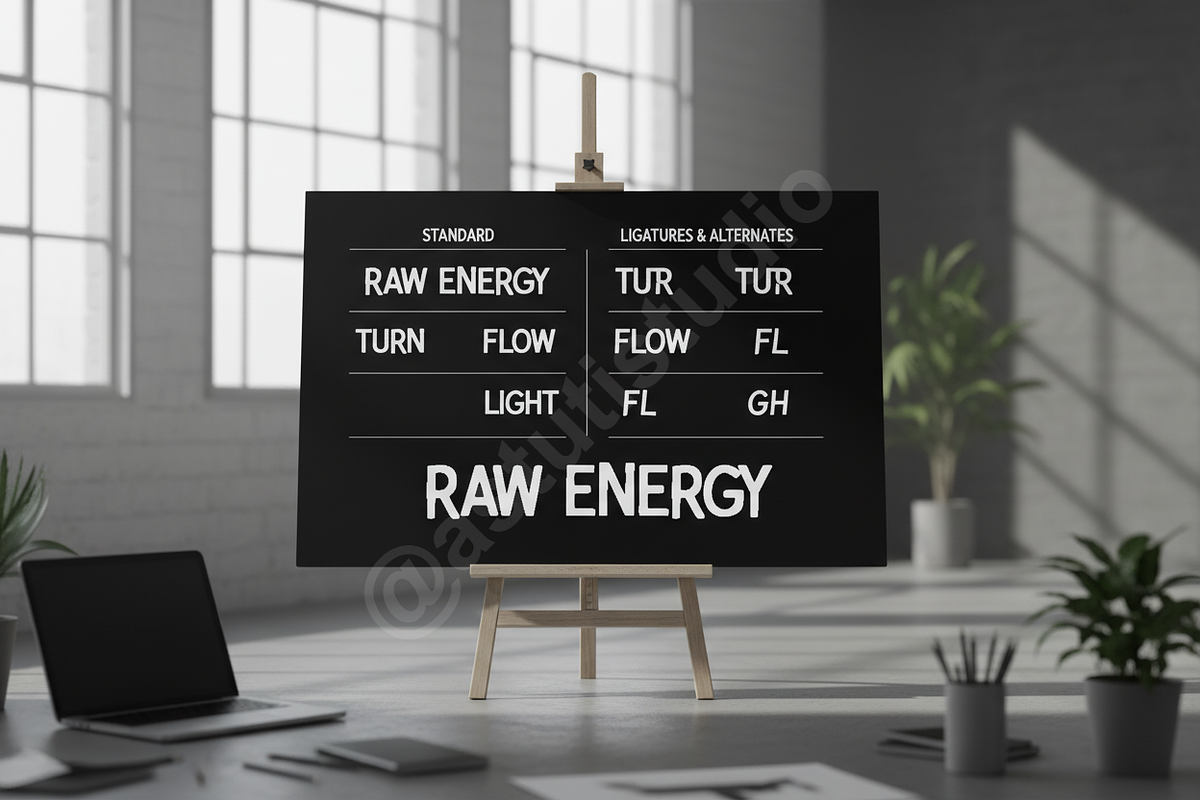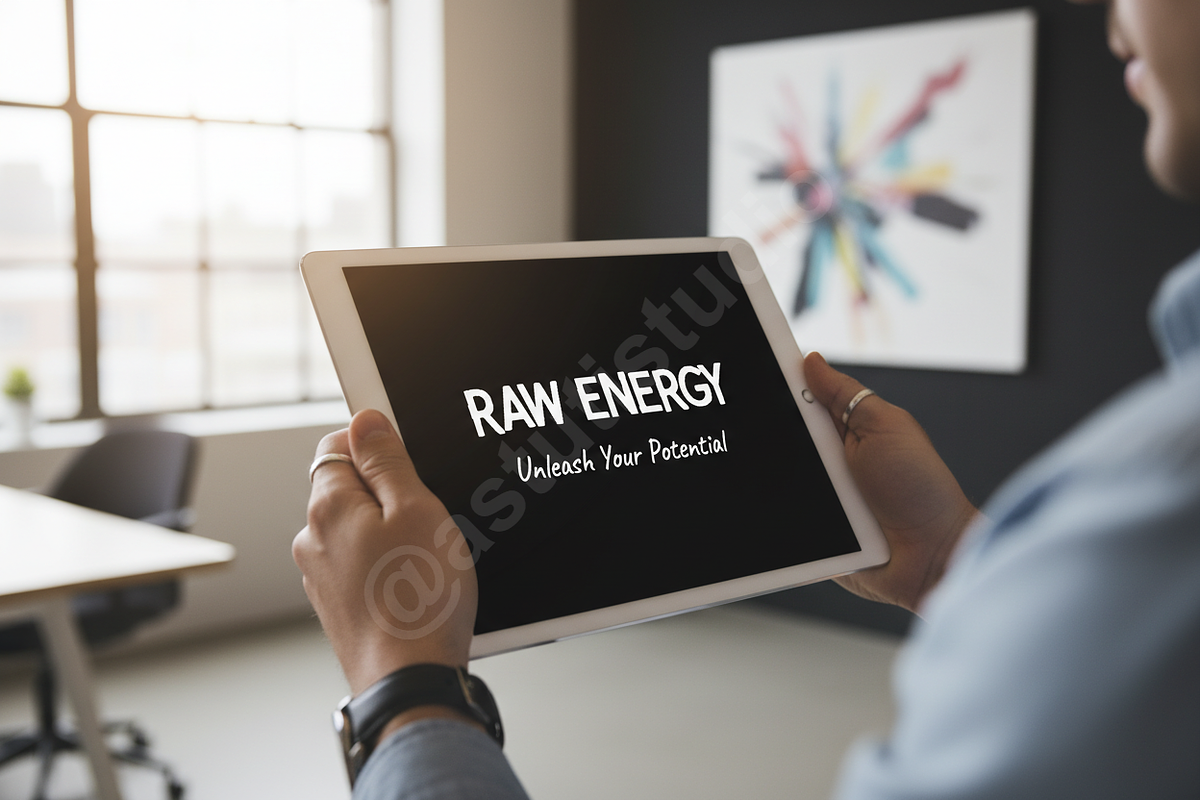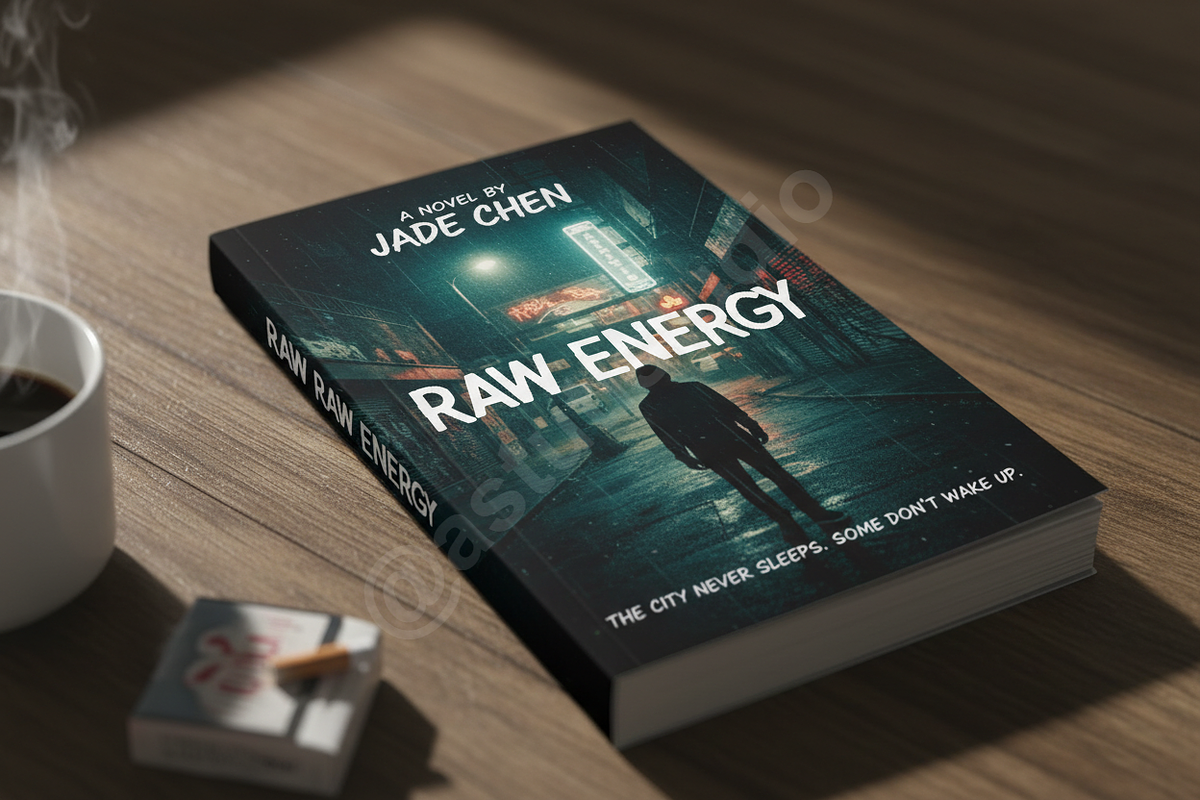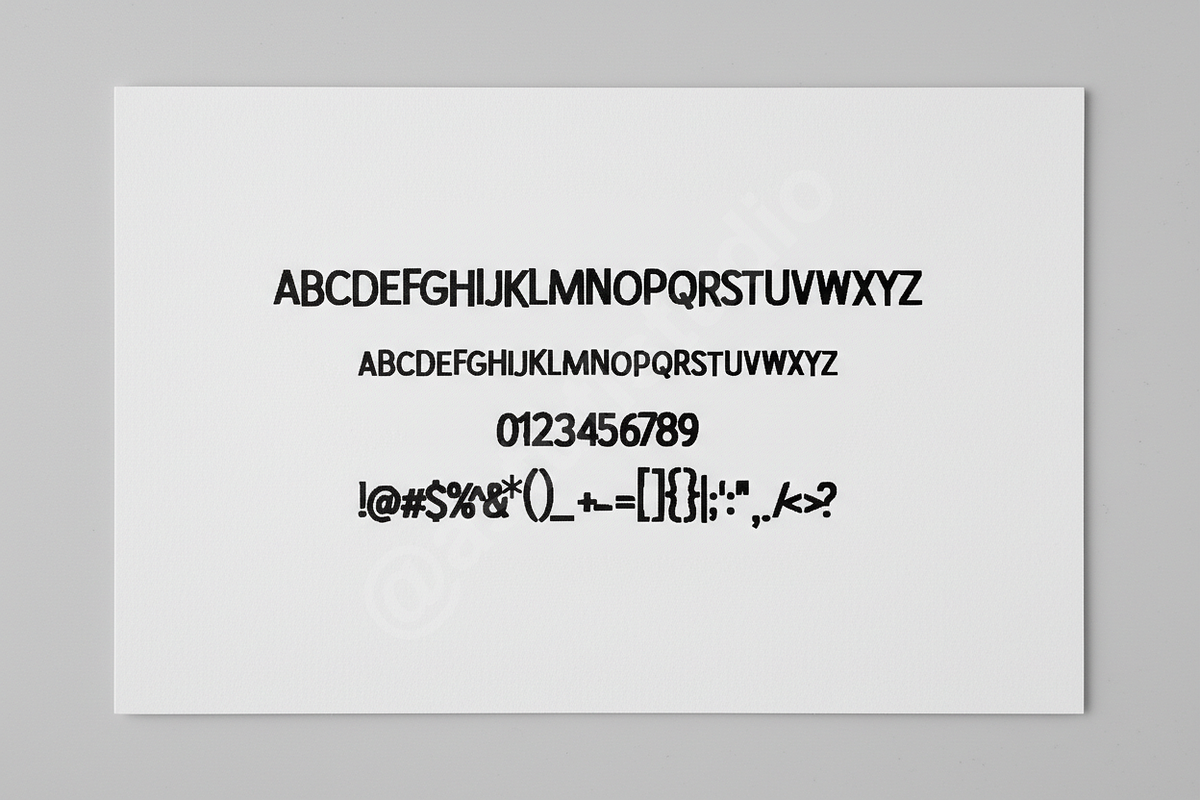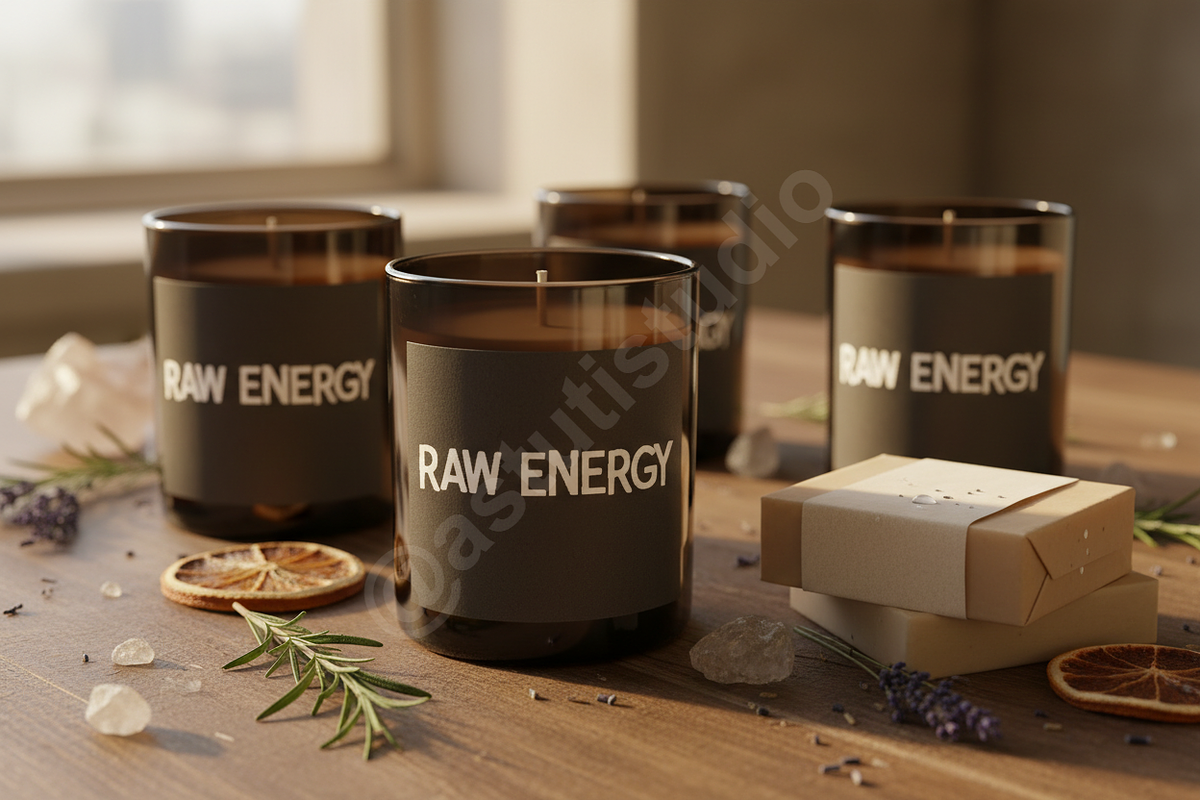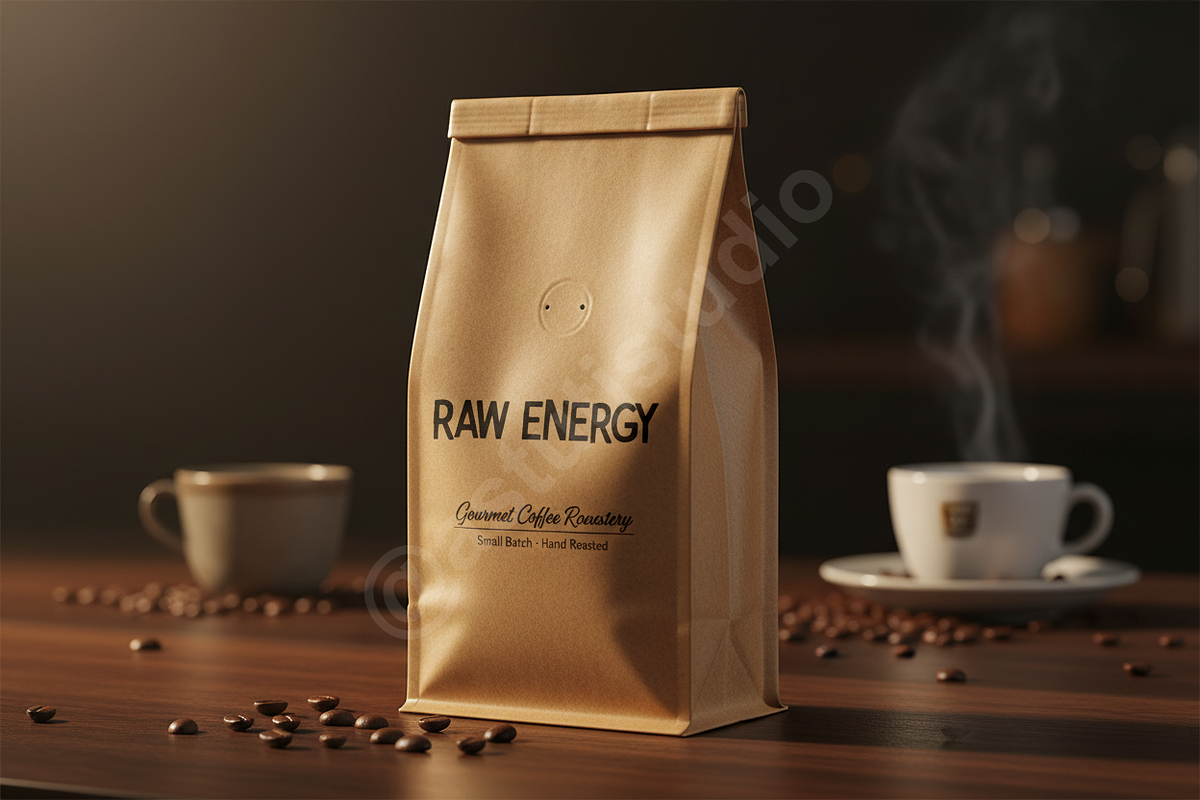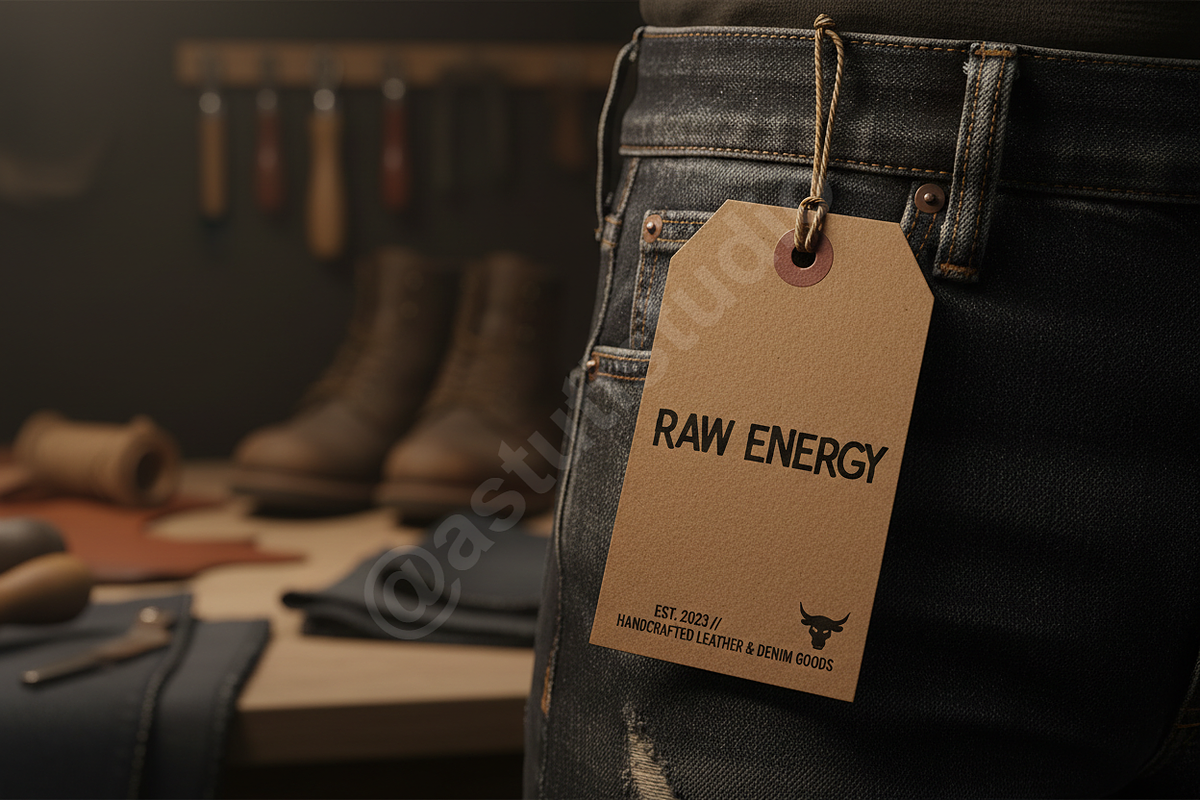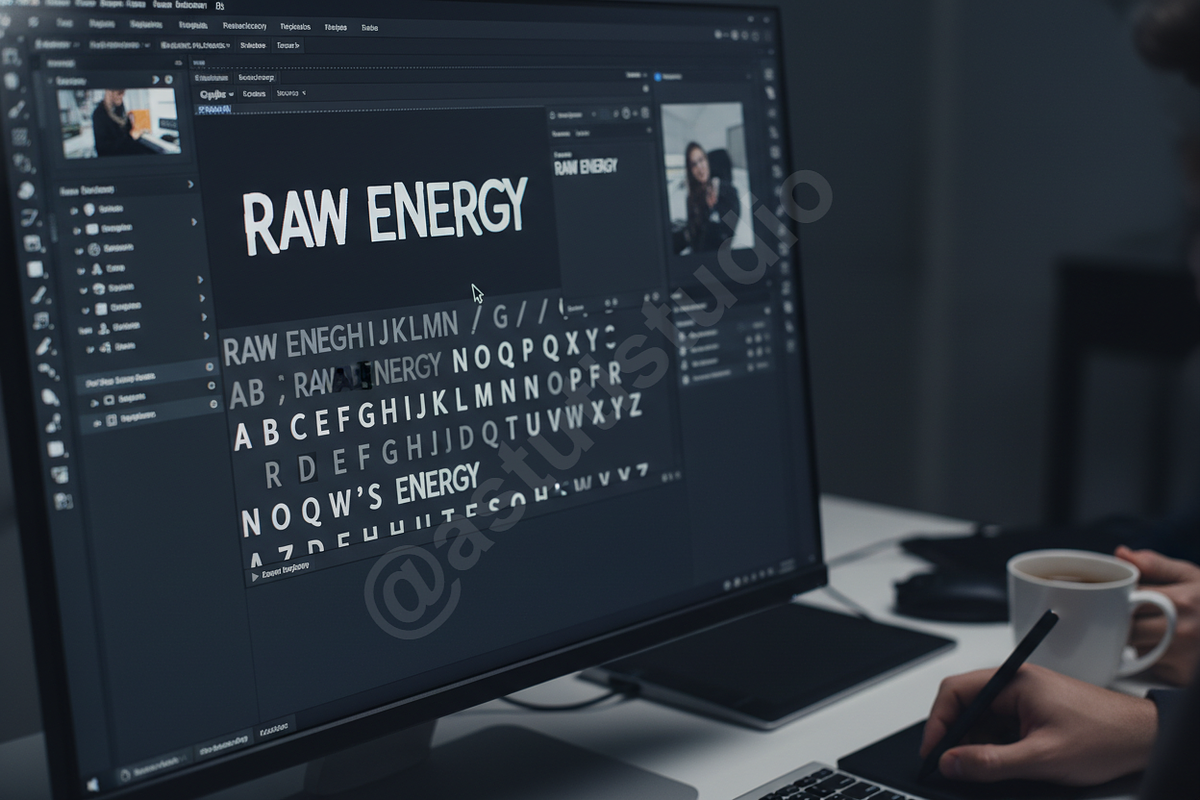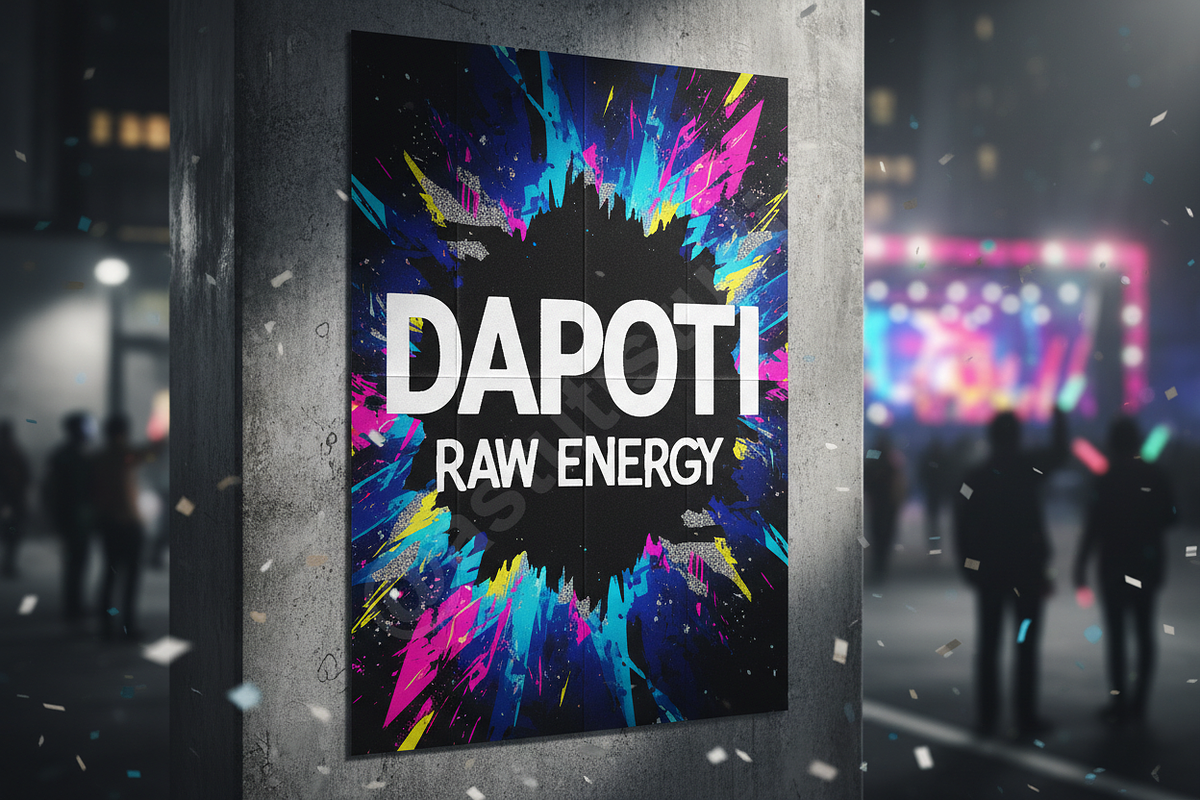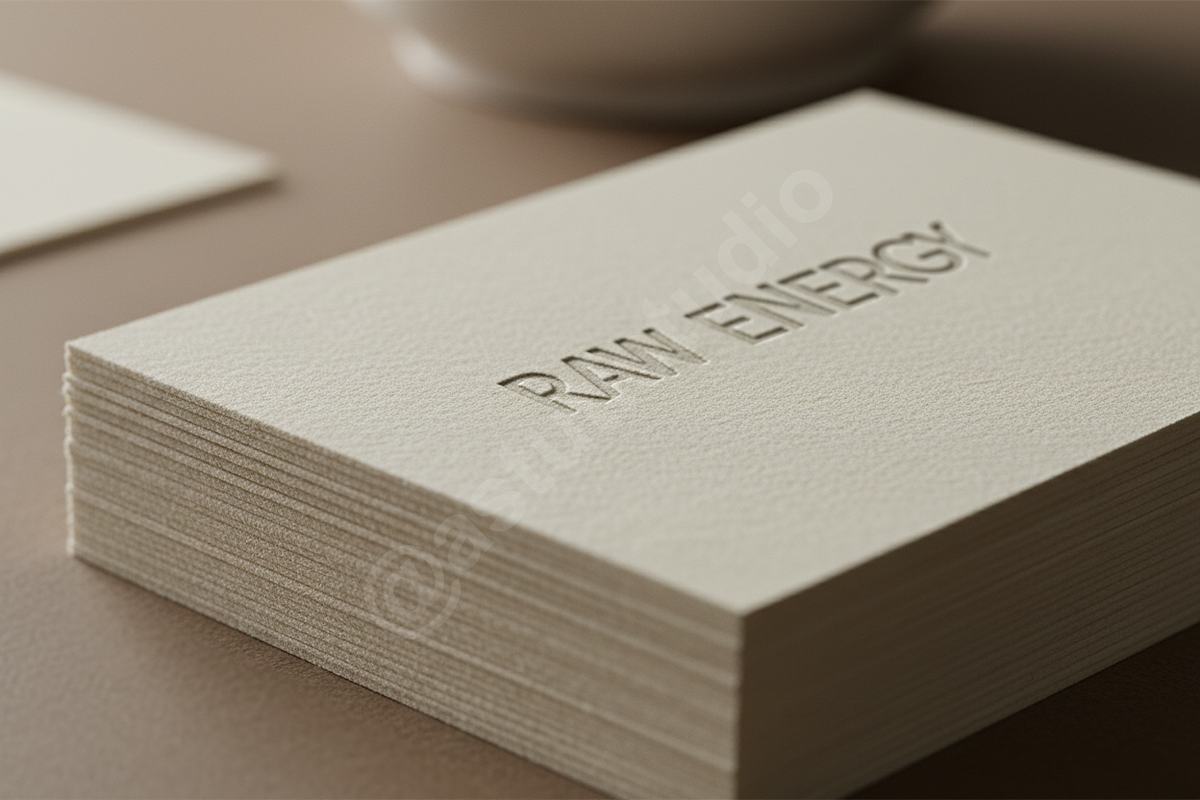
Dapoti: Elegant Modern Serif Typefac
Dapoti is a sophisticated modern serif typeface designed for high-end creative projects. Merging timeless elegance with contemporary flair, Dapoti features delicate curves and balanced proportions, making it the definitive choice for brands seeking a refined and authoritative visual voice. It is meticulously crafted to elevate luxury branding, captivating editorial layouts, and impactful social media campaigns.
- Versatile Weight Options: Available in Regular and Bold weights to suit various hierarchical needs.
- Extensive Ligatures & Alternates: Over 50 unique ligatures and stylistic alternates to add custom, handwritten elegance.
- Multilingual Support: Comprehensive coverage for Western, Central, and South Eastern European languages.
- Full set of Uppercase and Lowercase letters
- Complete set of stylistic ligatures and alternates